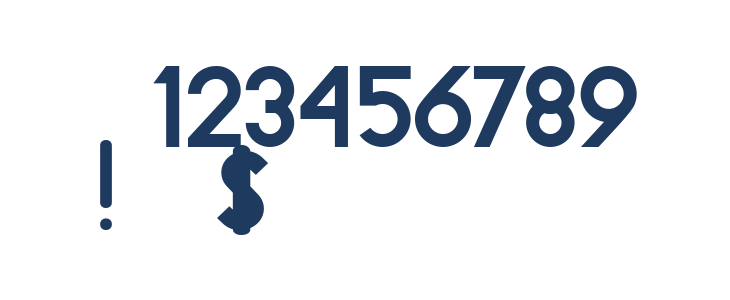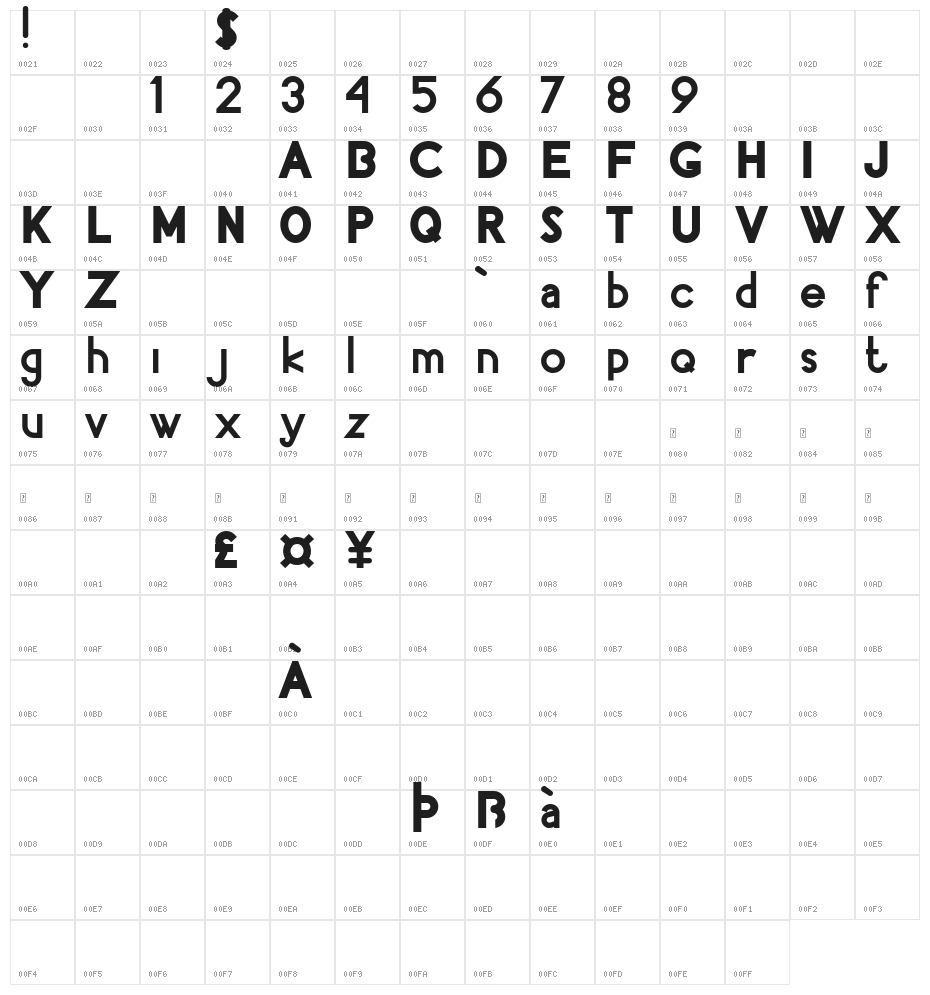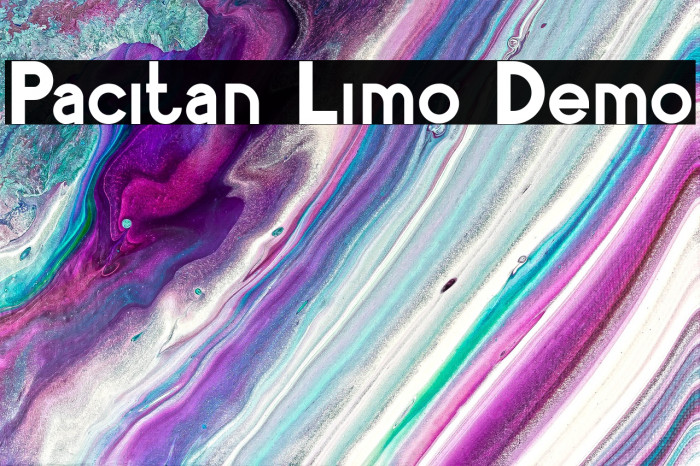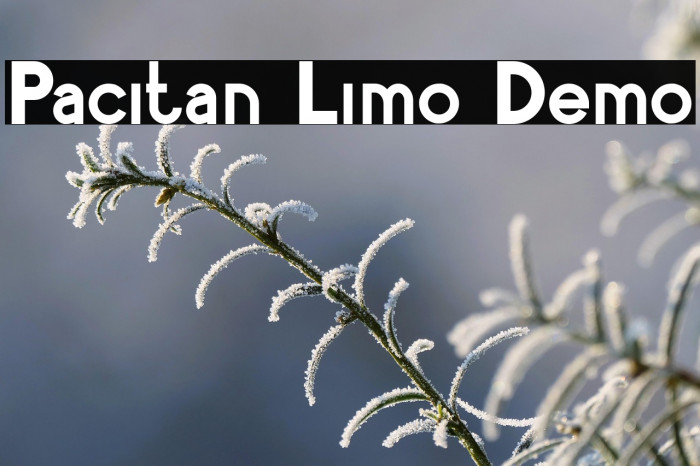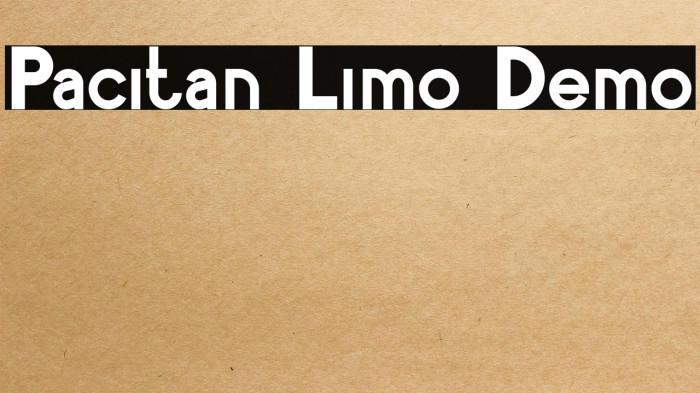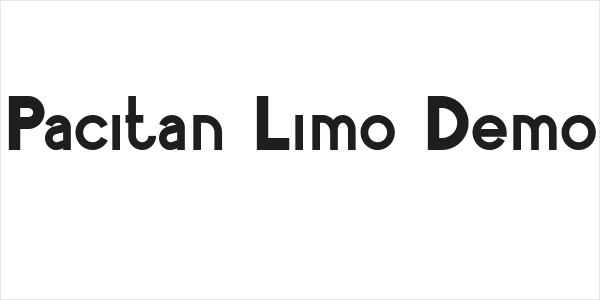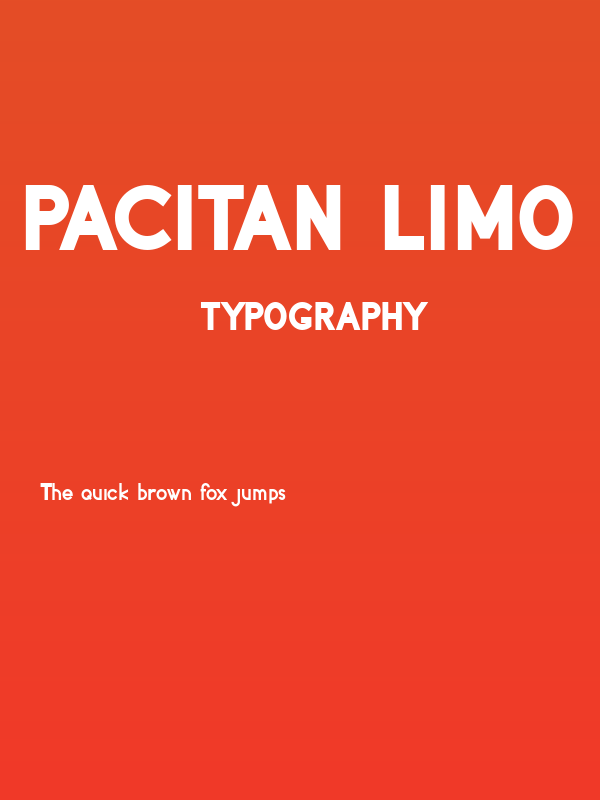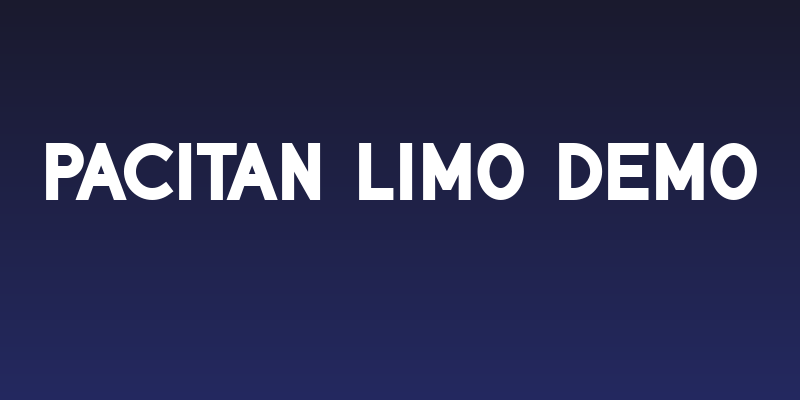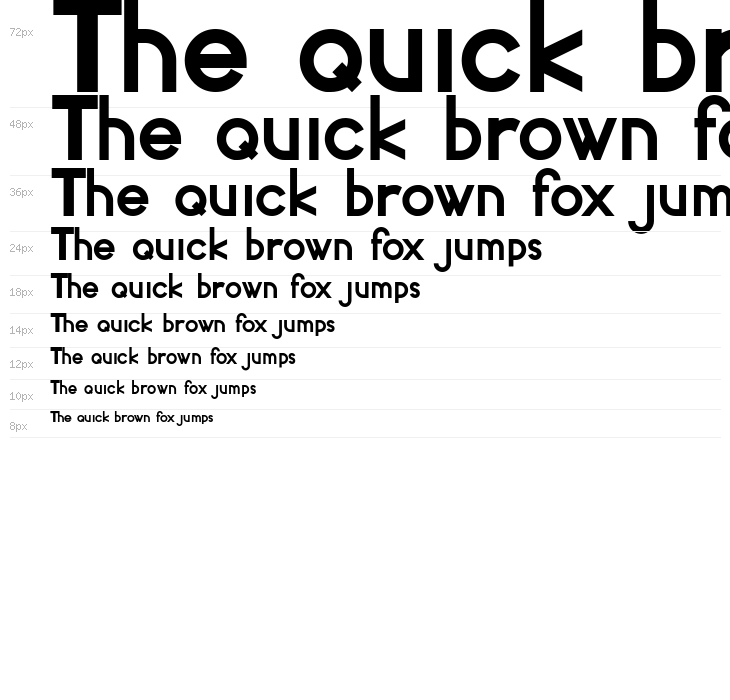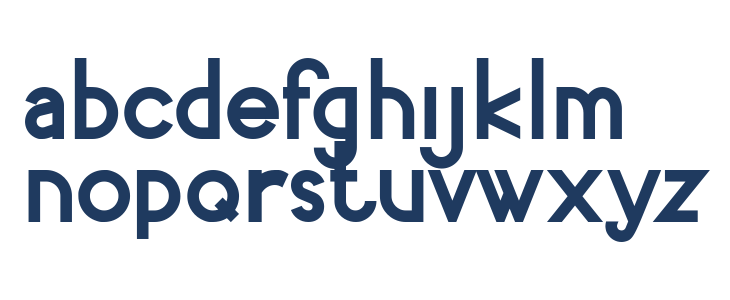
Pacitan Limo Demo Font
Pacitan Limo Demo Description
This font features a bold, geometric design with clean lines and a modern aesthetic. The uppercase letters are uniform in height, creating a strong and cohesive appearance. The lowercase letters maintain a similar geometric style, with rounded edges that add a touch of softness to the overall look. The numerals are consistent with the bold style, ensuring readability and impact. Special characters are designed to match the overall aesthetic, providing a seamless integration with the rest of the character set. This font is ideal for projects that require a contemporary and assertive typeface.
Use CaseHeadlines, Logos, Branding
Proposed ProjectsIdeal for branding, advertising, headlines, and digital media projects.